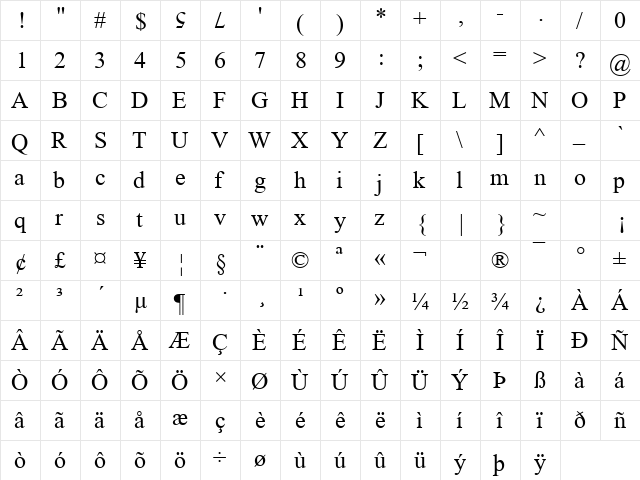
Arabic+ Times Regular
Design Context for Arabic+ Times Typeface
Arabic+ Times takes a measured approach to typography — its balanced proportions and neutral character make it a reliable workhorse for both digital and print work.